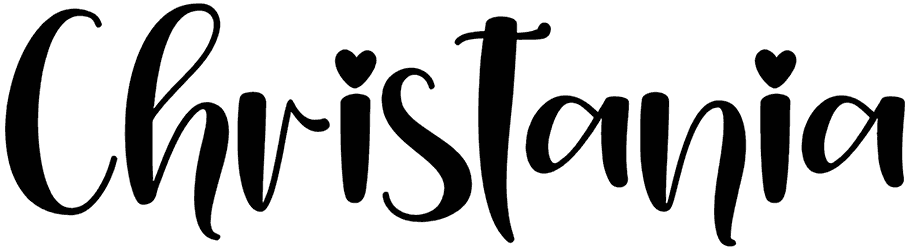
Abby Olla Font
When it comes to elegance and romance, there isn’t a better choice than a Valentine font. Abby Olla is a sparkling font that brings such joy to your content that it makes the reader fall in love. That’s the subtlety you want from your typography, whether it’s a Valentine’s card or a wedding invitation.
Designed by: Andrimada Creative